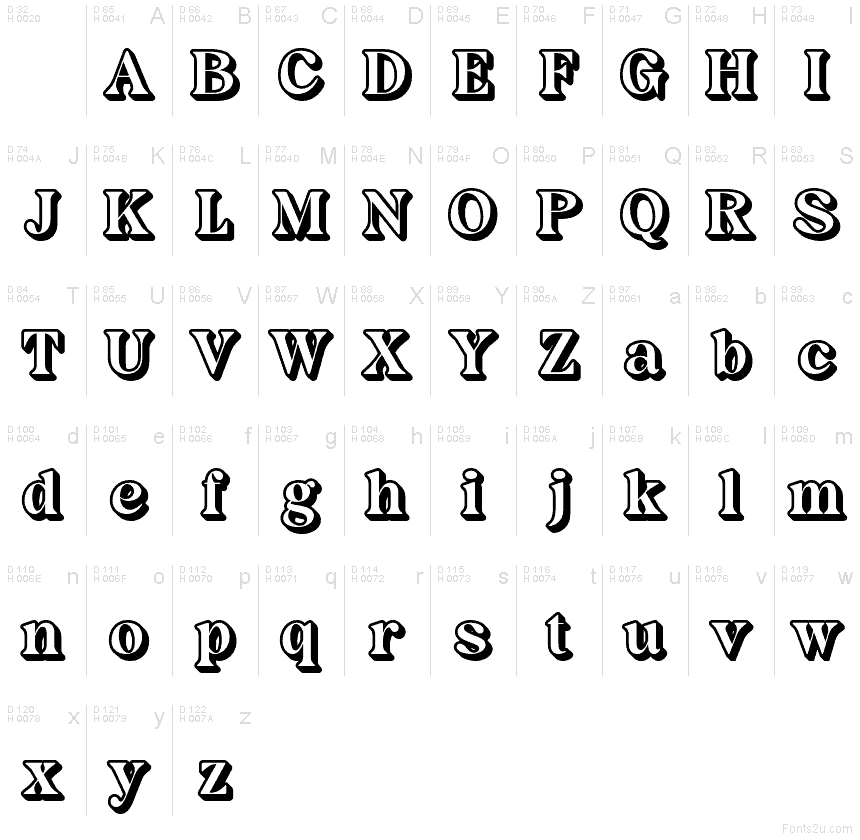
Helavite-ExtrudeRight Demo
Helavite Extrude Right font by Craft Supply Co. is a bold display serif font with prominent 3D effects inspired by Baroque-style aesthetics. This unique and appealing typeface features elegant curves and geometrical precision that inspired its simple yet outstanding personality. The artistic vision of the classic lettering font is attainable with Helavite Extrude for free.
The distinctive ornamentation of this retro-inspired display font makes it perfect for highly organized book covers, memorable posters, mesmerizing packaging designs, fun T-shirts, business cards, and branding presentations in general.